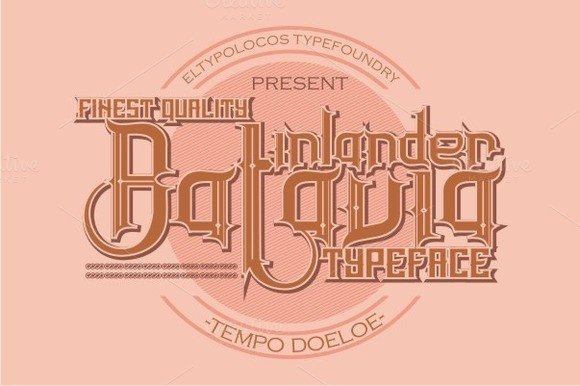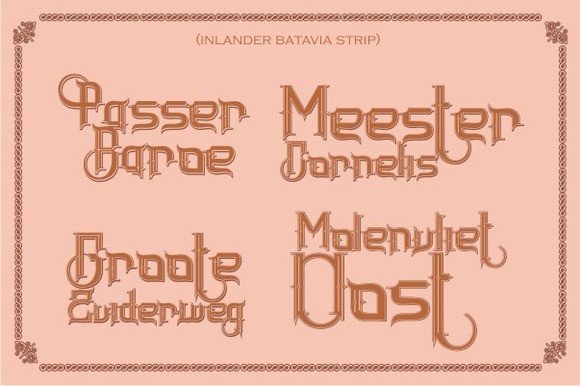
The Timeless Charm of Inlander Batavia Font
Do you remember the feeling of rummaging through your grandfather’s old trunk, filled with dusty photographs, yellowed letters, and forgotten trinkets? As you carefully unfold a worn-out map, the creased paper whispers tales of a bygone era. In that moment, you’re transported to a world of nostalgia and wonder. This is the kind of magic that the Inlander Batavia Font aims to evoke.
This oldskool typeface is a loving tribute to the rich history and culture of Batavia, now known as Jakarta. With its unique blend of traditional and modern elements, the Inlander Batavia Font is perfect for designers seeking to add a touch of vintage charm to their projects. From headings and logos to invitations and posters, this versatile font is a valuable addition to any design arsenal.
- Unique Characteristics: The Inlander Batavia font features a unique, elegant design with a mix of serif and sans-serif elements, making it ideal for use in headings, titles, and body text in various contexts, including branding, publishing, and advertising
Inlander Batavia Font Review
I’ve had the chance to work with the Inlander Batavia Font, and here’s my honest review.
- Natural, hand-drawn feel that adds a touch of warmth to any design.
- Perfect for creating a cozy, inviting atmosphere in magazines, blogs, or even branding materials.
- Highly legible, even at smaller font sizes, making it suitable for body text and titles.
- Wide range of language support, including Cyrillic and Greek, which is a plus for international projects.
- Limited font weights and styles, which might limit its versatility in complex designs.
- Some users may find the font’s natural feel a bit too casual or inconsistent for more formal projects.
- Not ideal for use in small digital spaces, such as mobile apps or websites, where clarity is crucial.
Overall, the Inlander Batavia Font is a great choice for designers who want to add a personal touch to their work. While it may have some limitations, its unique feel and high legibility make it a valuable addition to any design toolbox.
- Use it for headings and titles to add a touch of elegance.
- Combine it with other fonts to create a unique and interesting typography.
- Experiment with different font sizes and colors to find the perfect balance.
Here are some common use cases for the Inlander Batavia Font:
- Magazine and newspaper headlines.
Yes, the Inlander Batavia Font is suitable for body text. Its clear and legible design makes it an excellent choice for large blocks of text. However, for smaller text sizes, you may want to consider using a font with a higher x-height or a font specifically designed for small text.